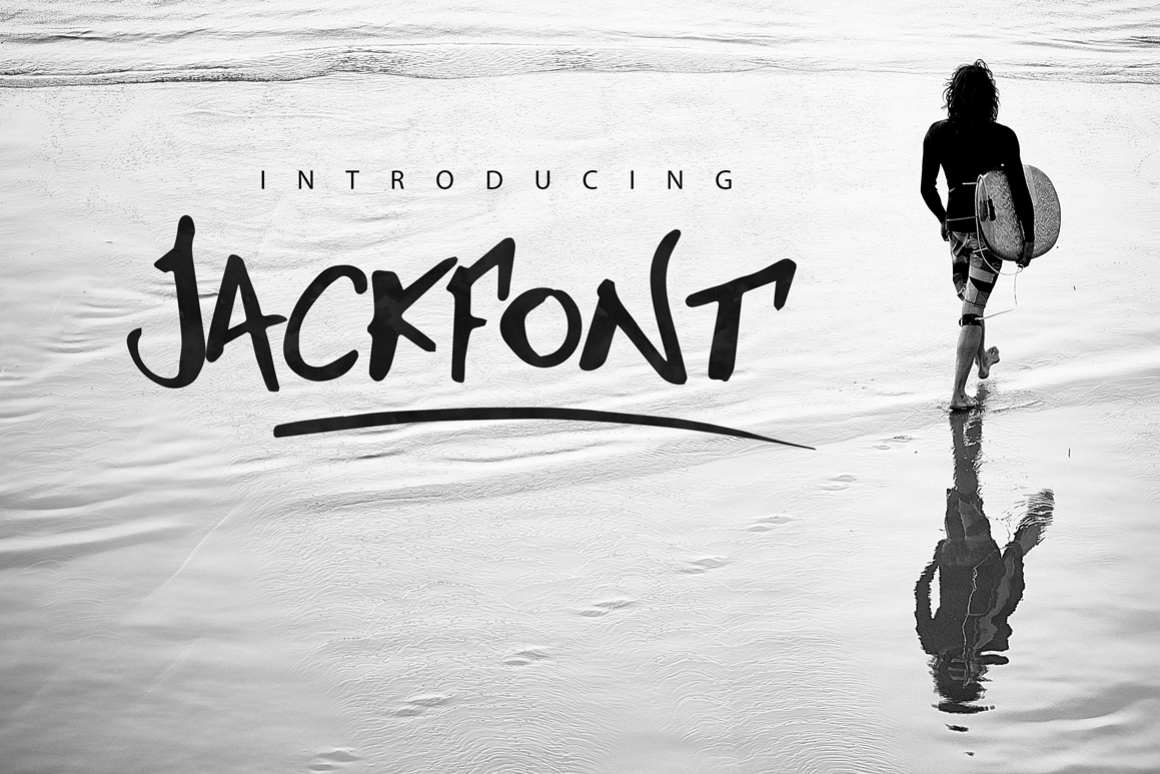
Jackfont Script Typeface
Jackfont is a succesful handmade marker font family. Perfect for your favourite designs with bold, regular and light letters.
All uppercase. All letters. All numbers. All punctuations. All extensions. All symbols